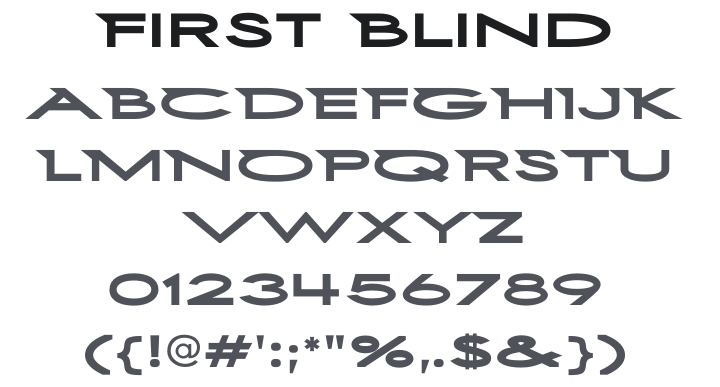
First Blind Two Font
About First Blind Two
First Blind Two is an extra-wide, all-caps sans-serif display typeface where most capital letters feature distinctive "wing tips" — small horizontal flares at stroke ends that give it a quirky, semi-futuristic character. Its unusually wide proportions command attention across a headline. Great for sci-fi titles, tech branding, industrial signage aesthetics, and any bold display use needing an unconventional, spacious presence.